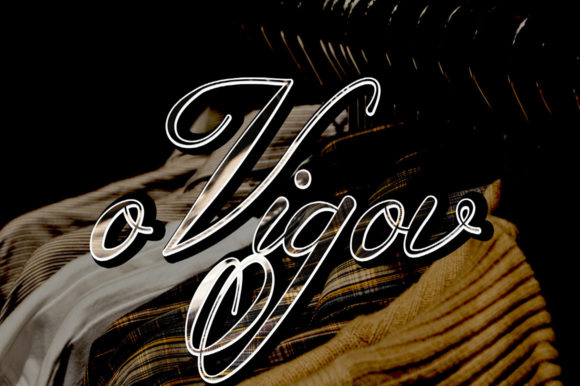
Introducing Viver Font, the epitome of romance and elegance. This enchanting script font, crafted by Edi Studio, exudes a timeless beauty that will leave you spellbound. Its delicate curves and graceful flourishes evoke the charm and allure of handwritten letters, making it the perfect choice for expressing your heartfelt emotions.
Viver Font isn't just a font; it's an expression of your love, a reflection of your heartfelt sentiments. Imagine your wedding invitations adorned with this font, the delicate strokes carrying your cherished vows to your beloved. Or picture your romantic letters, each word flowing effortlessly from your pen, imbued with the passion of your heart.
With Viver Font, you can effortlessly create designs that radiate a touch of vintage elegance, whether it's a greeting card for a special occasion, a sophisticated logo for your creative business, or simply a heartfelt message to someone you hold dear. Its versatility and charm know no bounds, allowing you to weave your creative magic effortlessly.
Embrace the power of Viver Font and let your creativity blossom. Its enchanting aura will elevate your designs, sparking a cascade of compliments and admiration from those who behold them. Don't resist the allure of this romantic script font any longer; let it ignite your passion and transform your designs into captivating masterpieces.